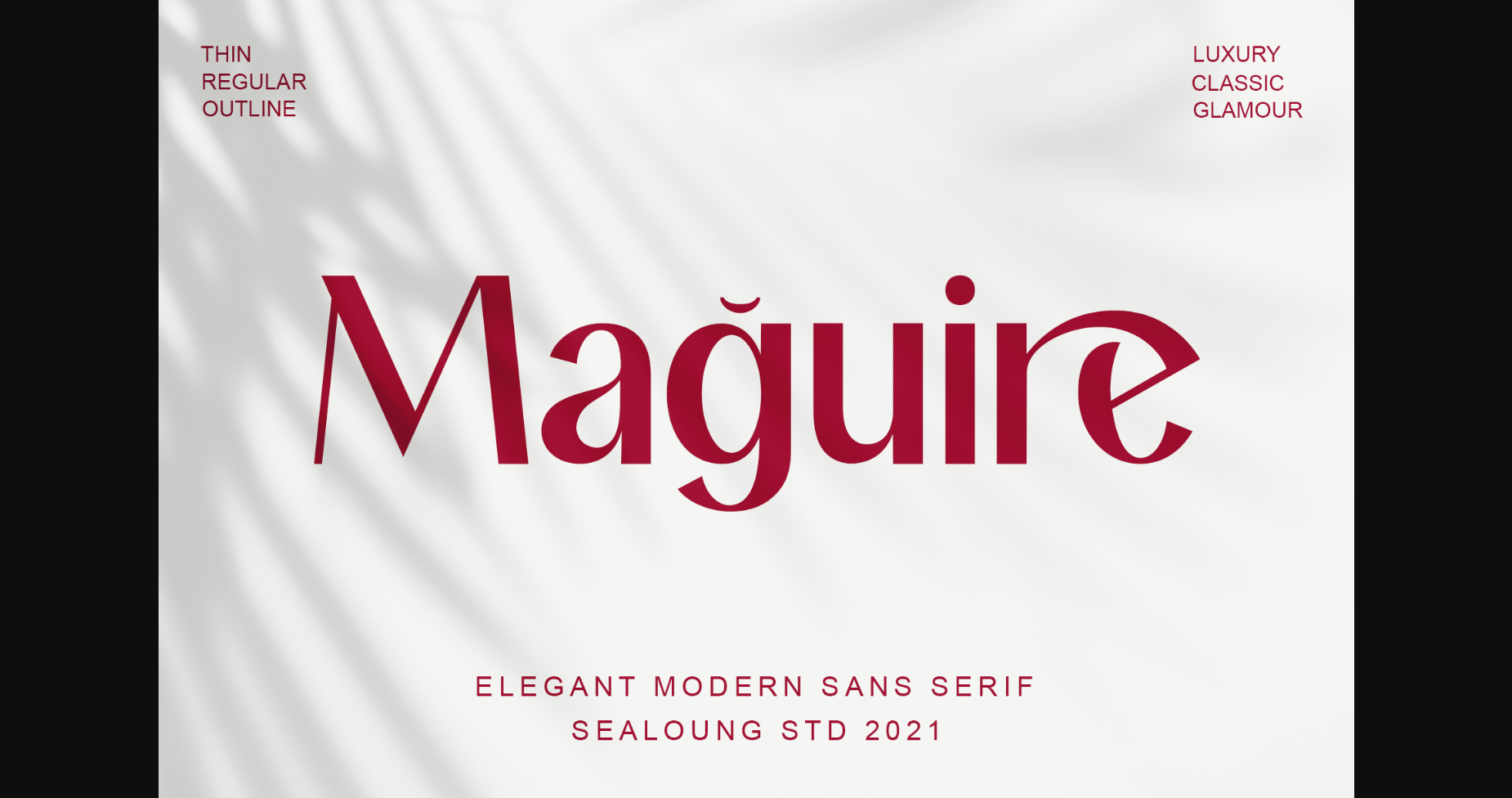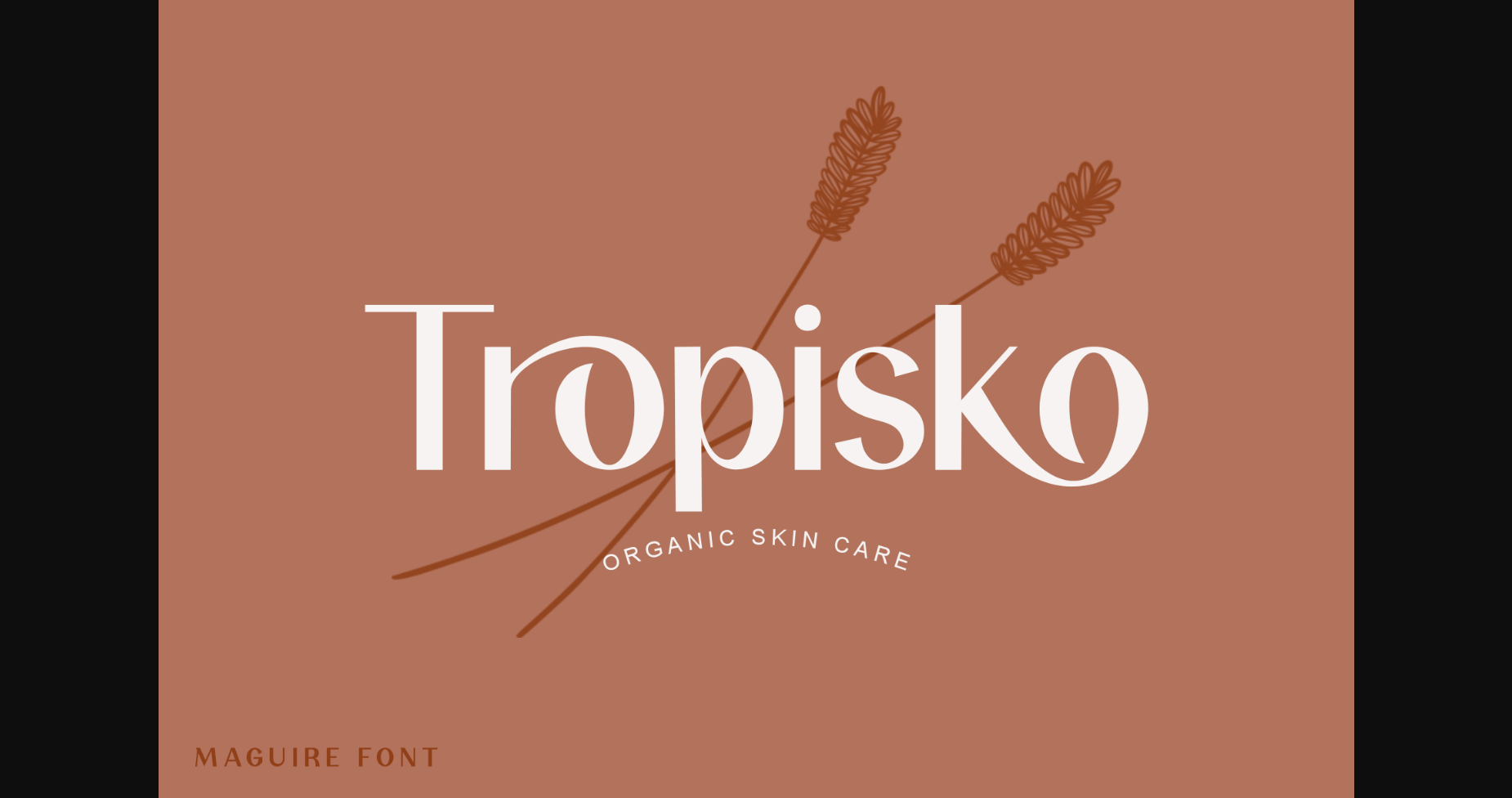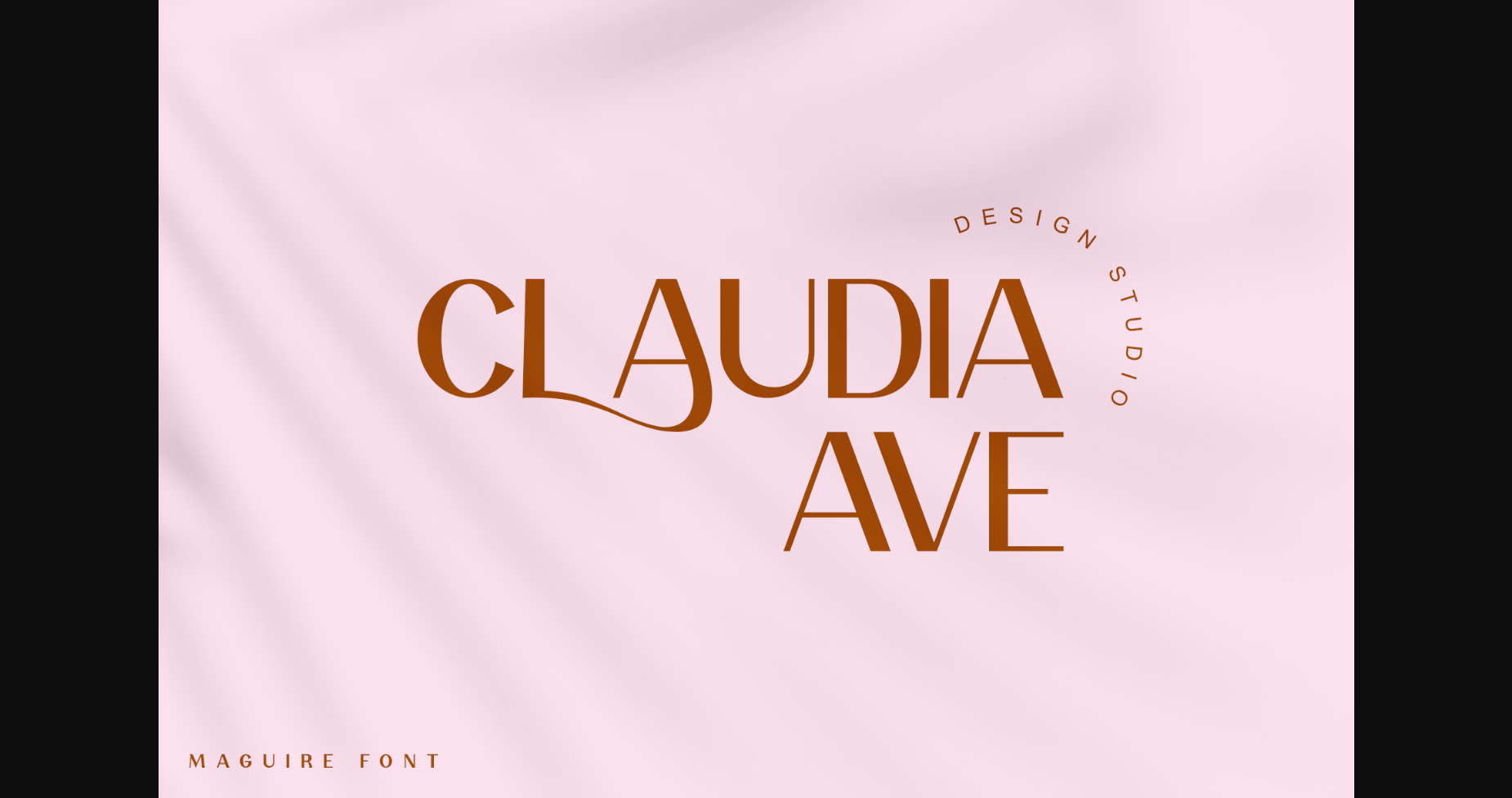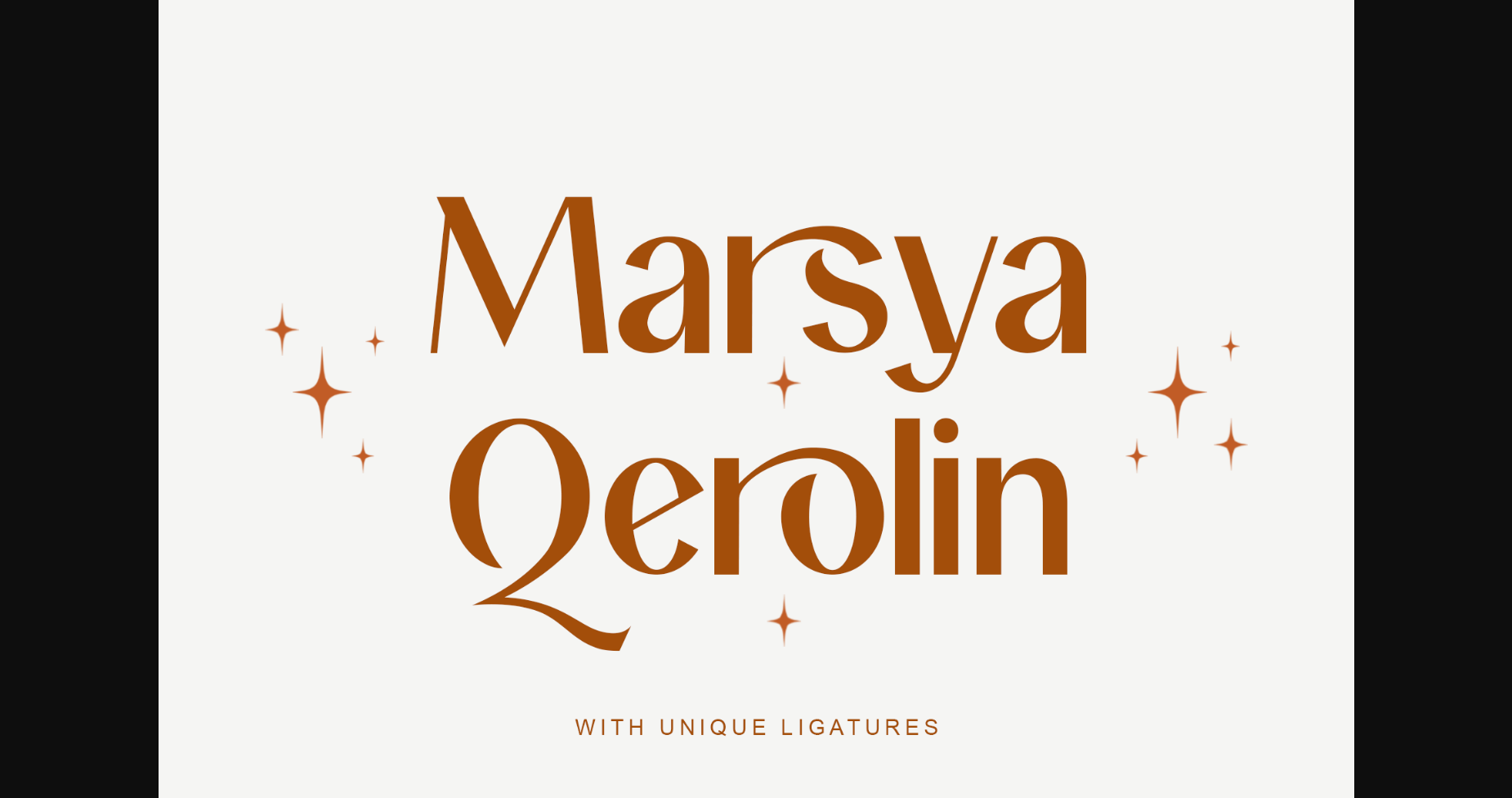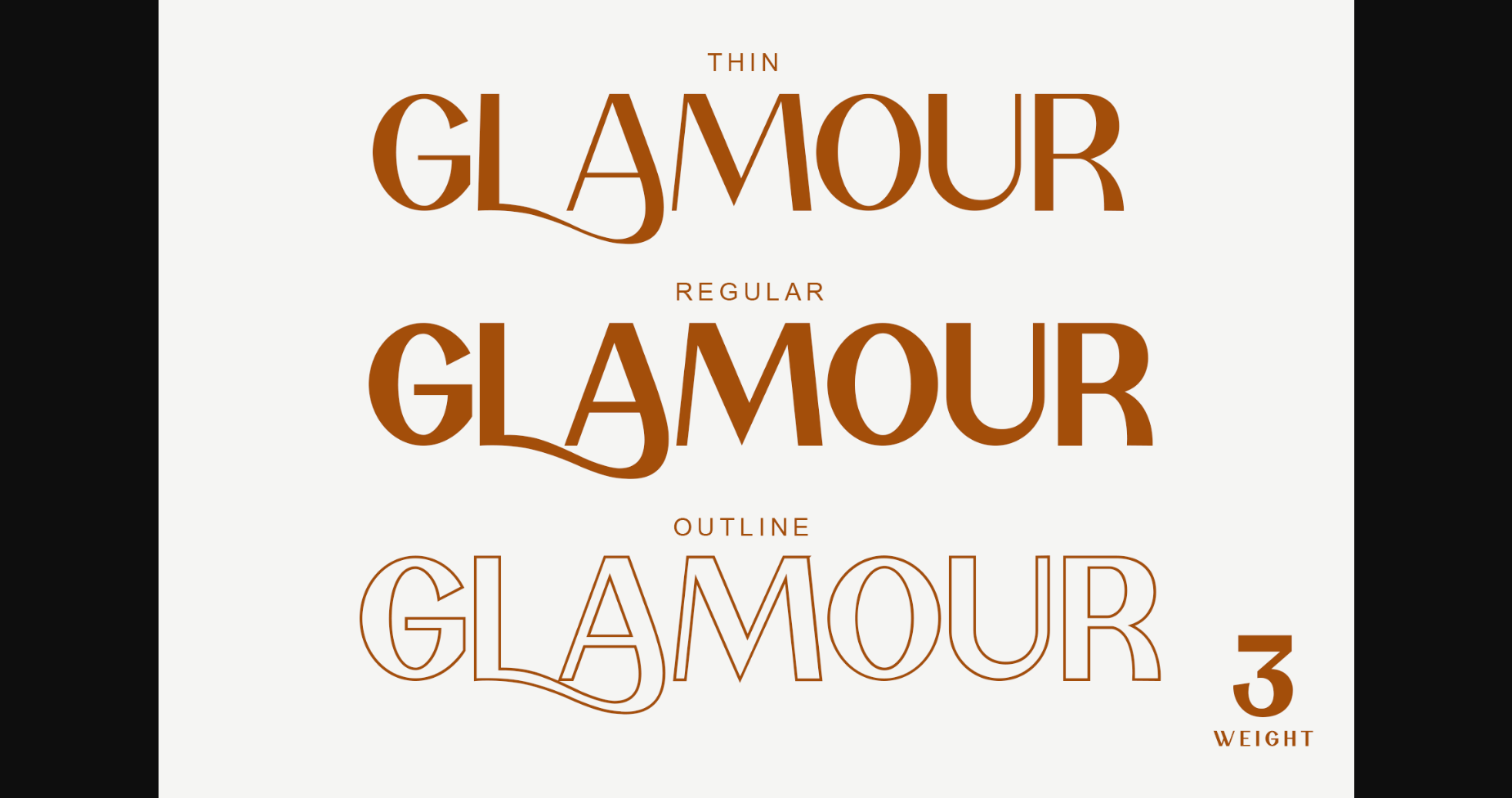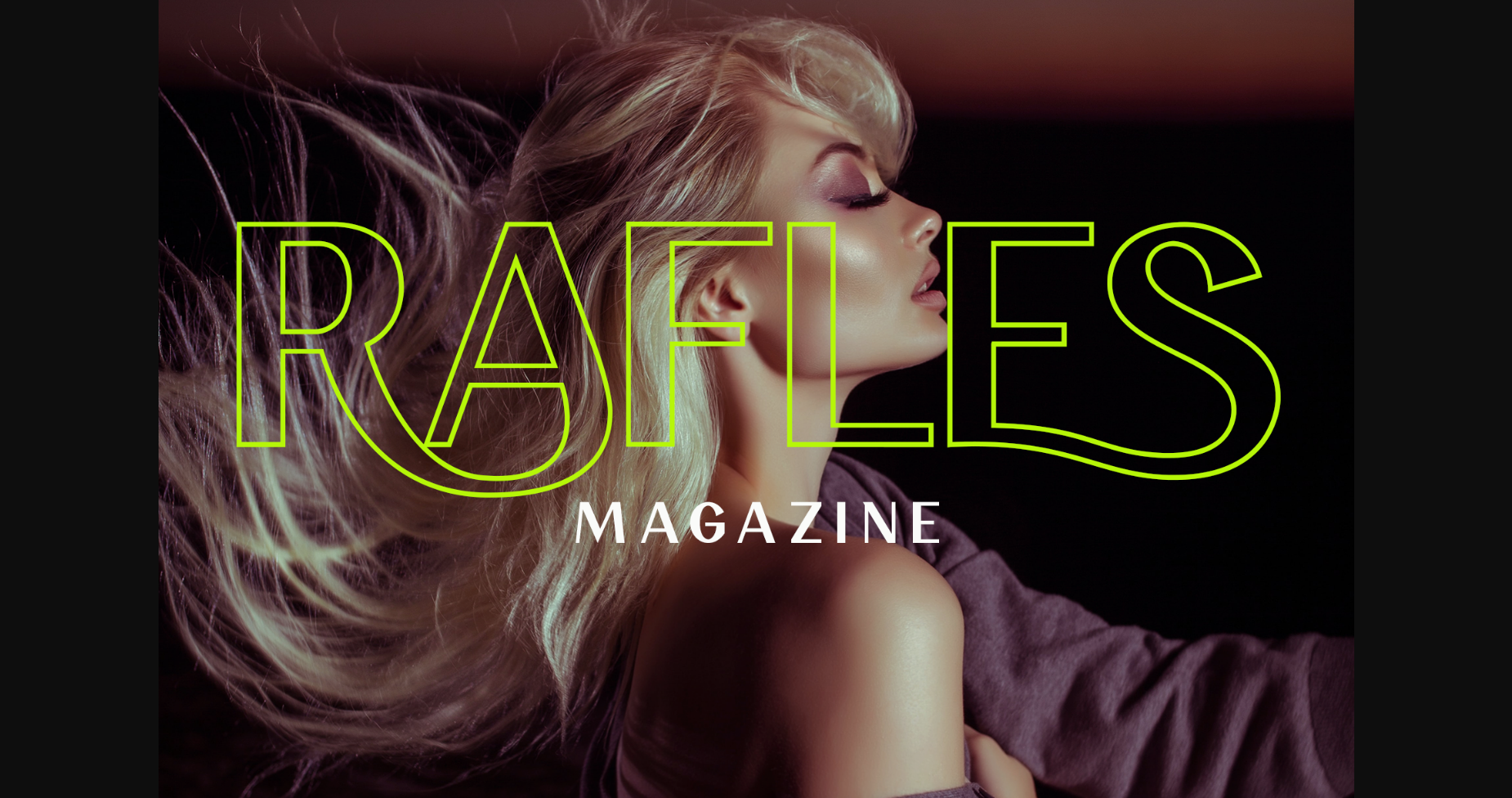
Maguire Font
About Maguire Font
Maguire is an elegant, bold and modern sans serif font. Featuring the perfect amount of trendiness, this font will instantly make your designs look out of this world. Maguire is PUA encoded which means you can access all of the glyphs and swashes with ease!